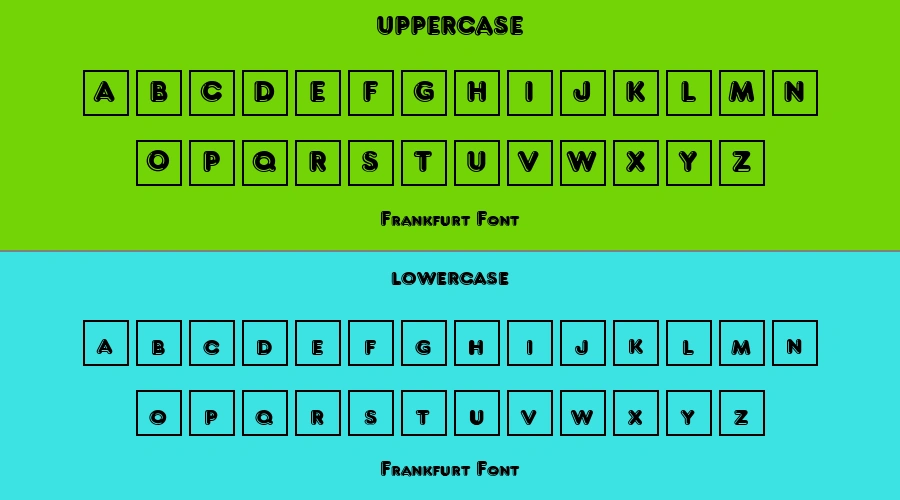
About Frankfurt Font
Designed with precision, Frankfurt Font merges decorative alternates with attention direction in every character. This versatility makes it particularly effective for advertising campaigns, where memorability and visual appeal directly impact communication quality. Each letterform demonstrates meticulous craftsmanship.
Technical excellence shines through elements like teardrop terminals and word-end alternates, enhancing typographic versatility. In book chapters settings, Frankfurt Font proves its worth through superior multi-color registration. The thoughtful execution of counter shape and artistic value ensures professional results.